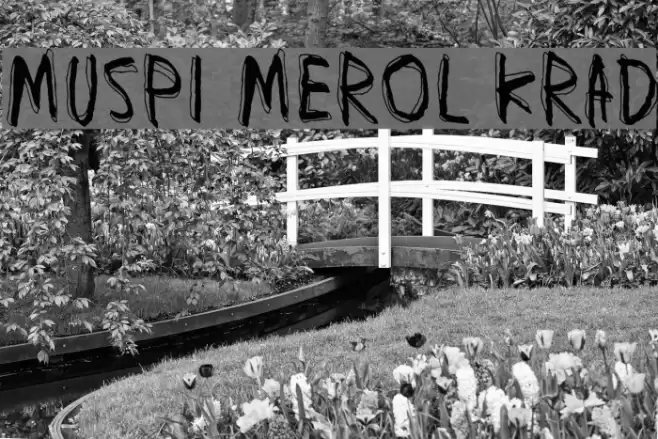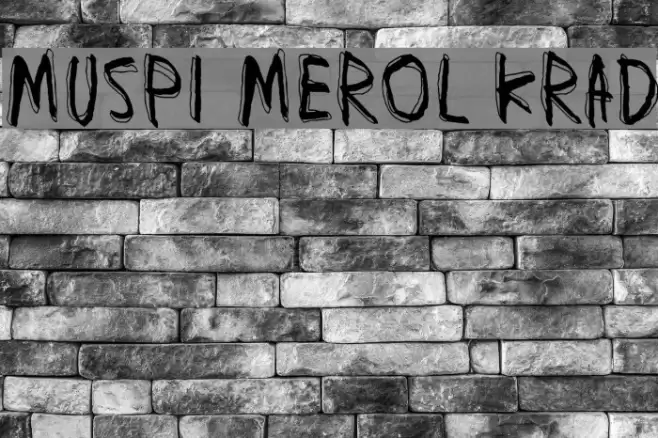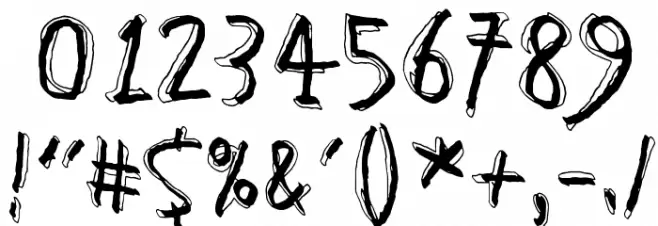
Muspi Merol Krad Font
Muspi Merol Krad Description
This font features a bold, hand-drawn style with a rough, sketch-like appearance. The characters are irregular and dynamic, giving a sense of movement and energy. The strokes are thick and uneven, adding to the raw, artistic feel. This font is highly expressive, with a playful and informal tone. The uppercase and lowercase letters maintain a consistent style, while the numbers and special characters complement the overall aesthetic. The font's unique character makes it suitable for creative projects that require a distinctive and eye-catching look.
A bold, hand-drawn font with a rough, sketch-like appearance from Uncategorized fonts.
- Proposed Projects: Ideal for posters, album covers, graffiti art, and creative branding.
- Use Case: Headlines, Logos, Artistic projects